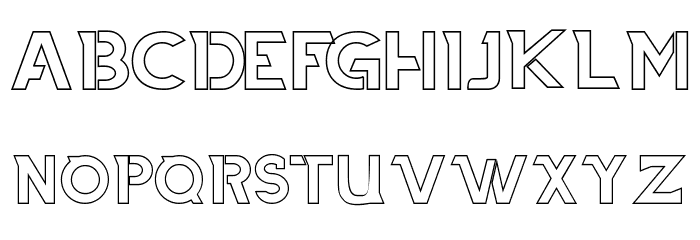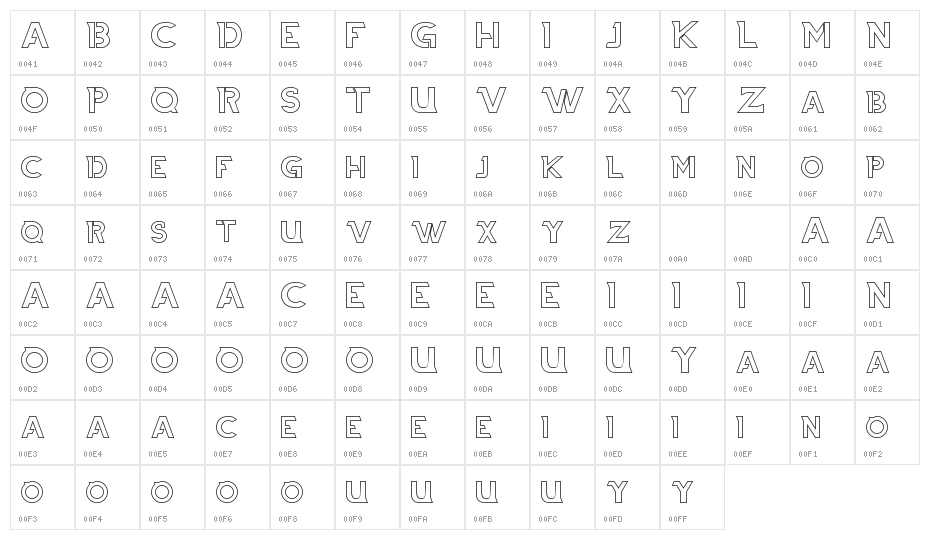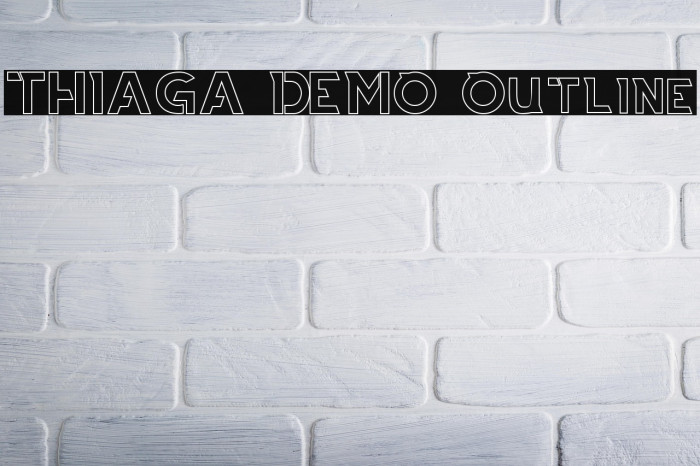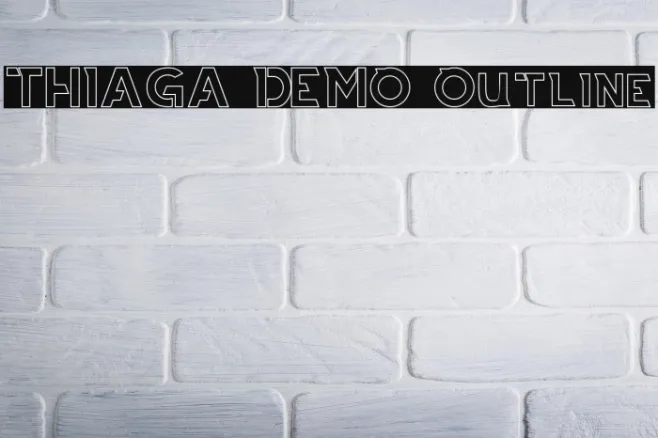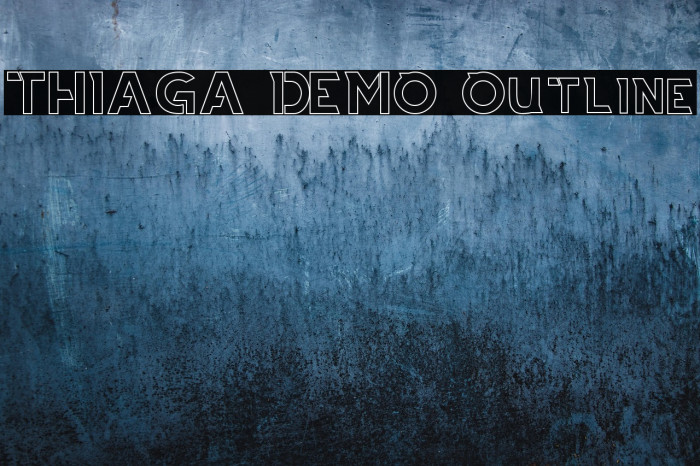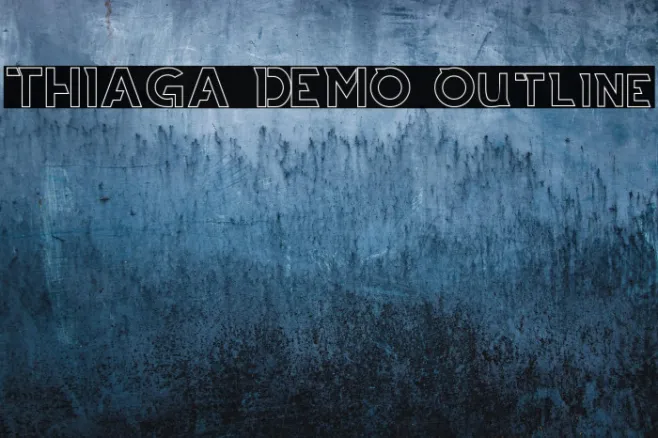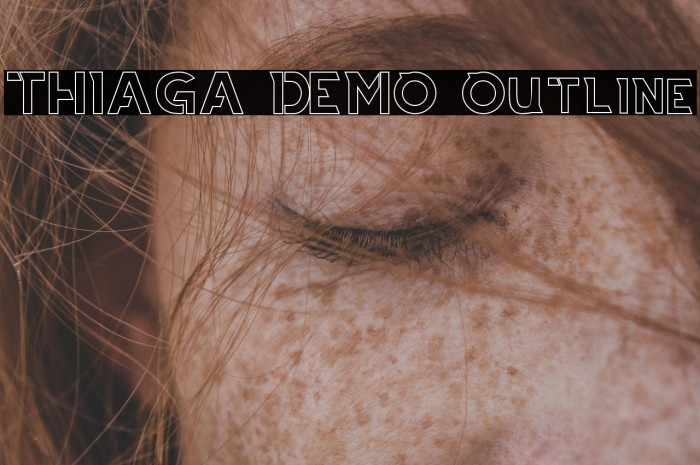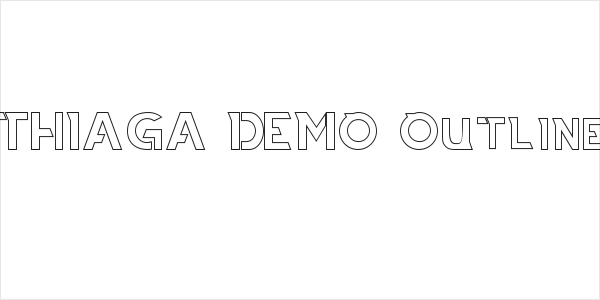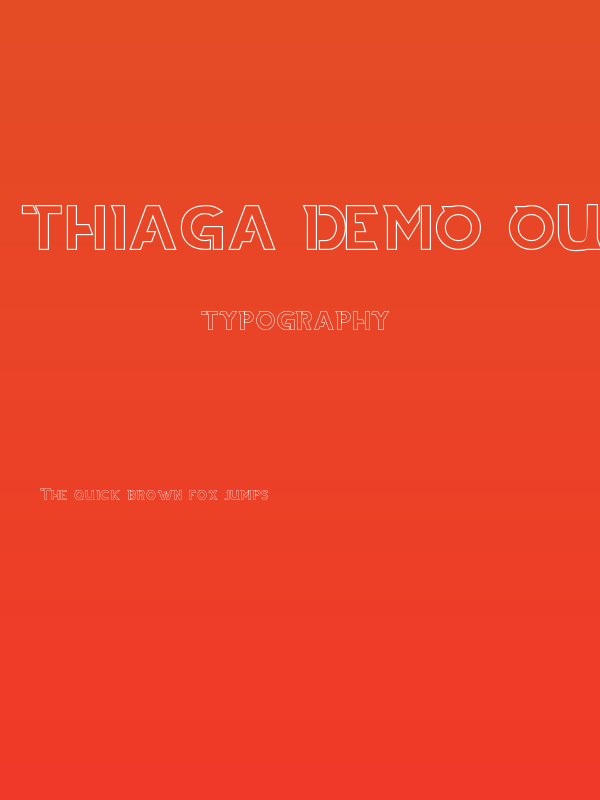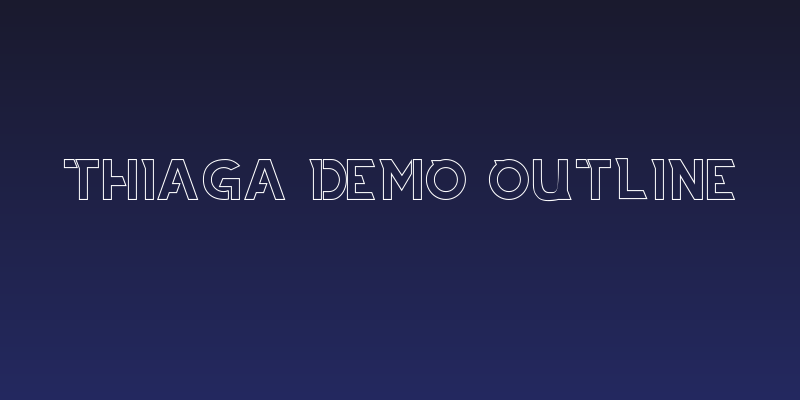
THIAGA DEMO Outline Font
THIAGA DEMO Outline Description
This font features a bold, geometric outline style that emphasizes its modern and decorative appeal. The uppercase letters are crafted with precision, showcasing clean lines and sharp angles that create a sense of structure and formality. The absence of serifs gives it a contemporary look, while the outlined design adds a layer of visual interest, making it suitable for eye-catching displays. The uniformity in stroke width across characters ensures a cohesive appearance, while the spacing between letters is balanced, providing readability and clarity. This font is ideal for projects that require a strong visual impact, such as branding, posters, and headlines.